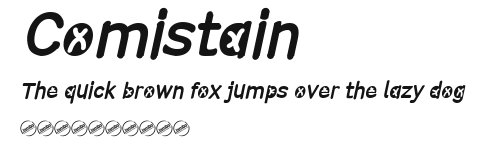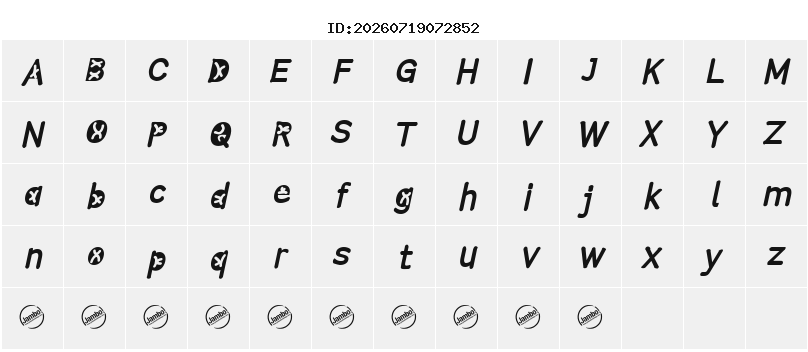
• Font Name: Comistain
• Font ID: Jambo!: Comistain Italic: 2014
• Full Font Name: Comistain Italic
• PostScript Name: Comistain-Italic
• Character Count: 213
• Designer: Jambo!
• Manufacturer: Jambo!
About Comistain.ttf
Comistain.ttf is a modern, elegant sans-serif font designed for ultimate readability and visual harmony. Perfect for branding, headlines, web design, and print materials.